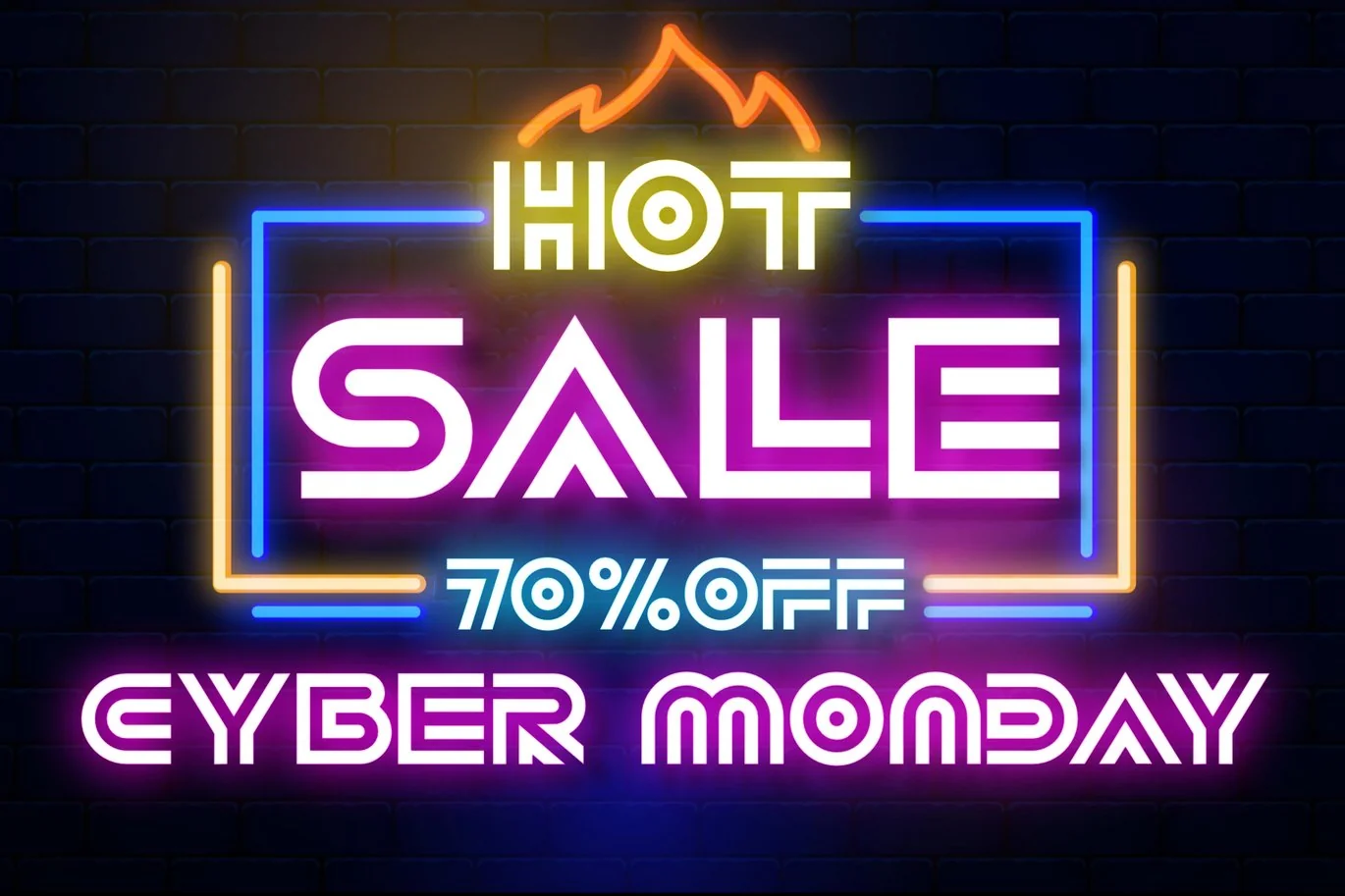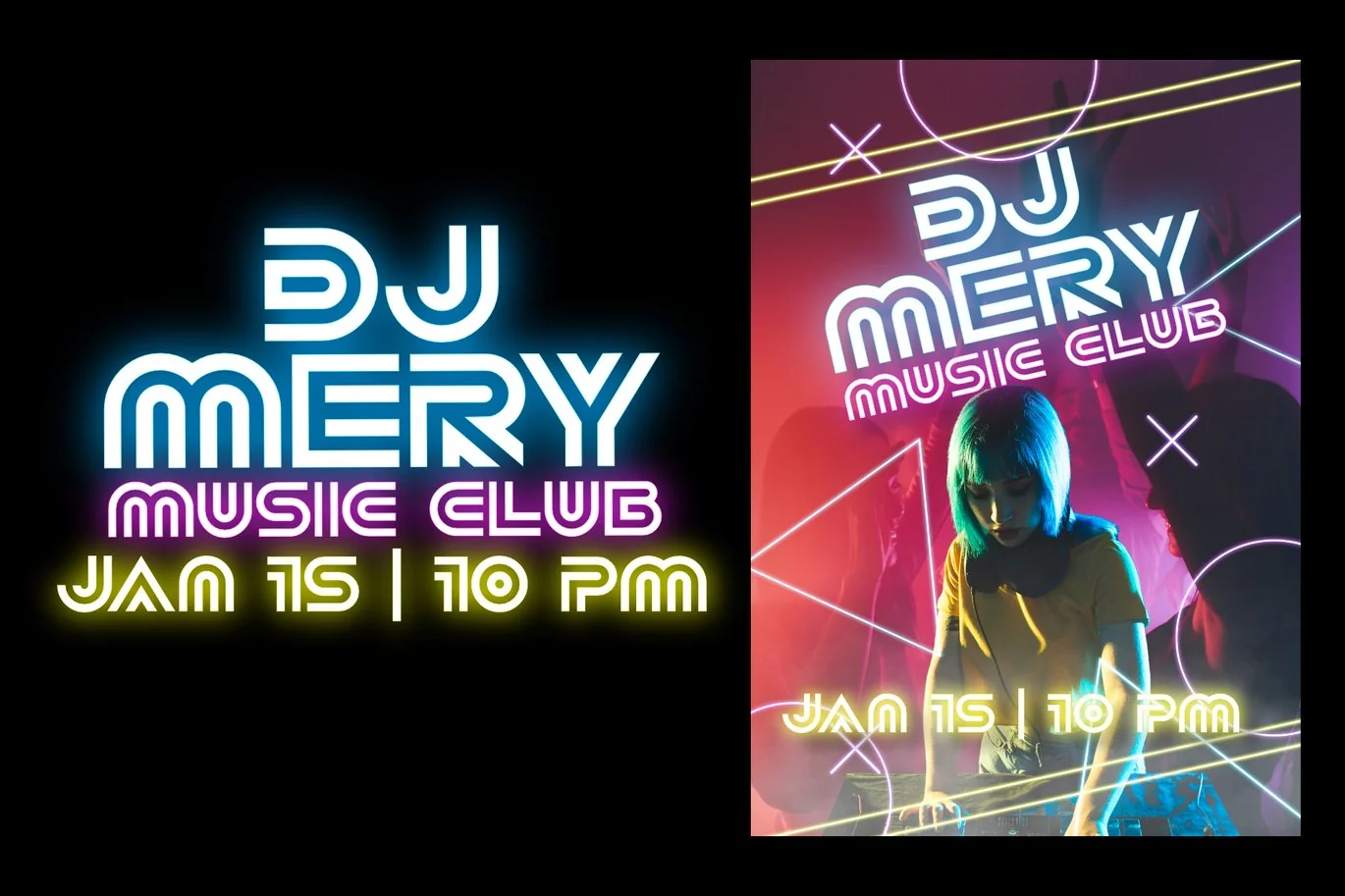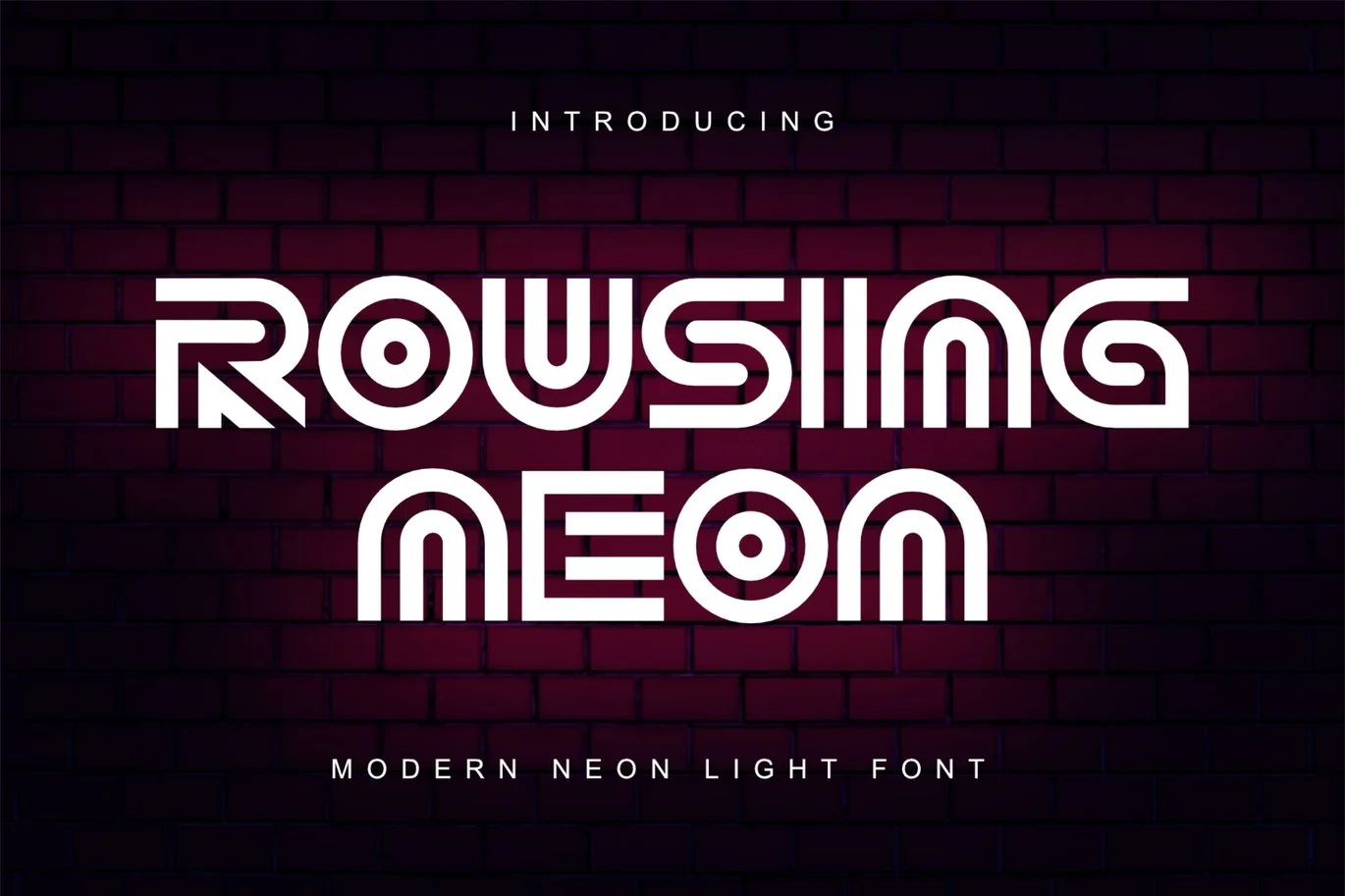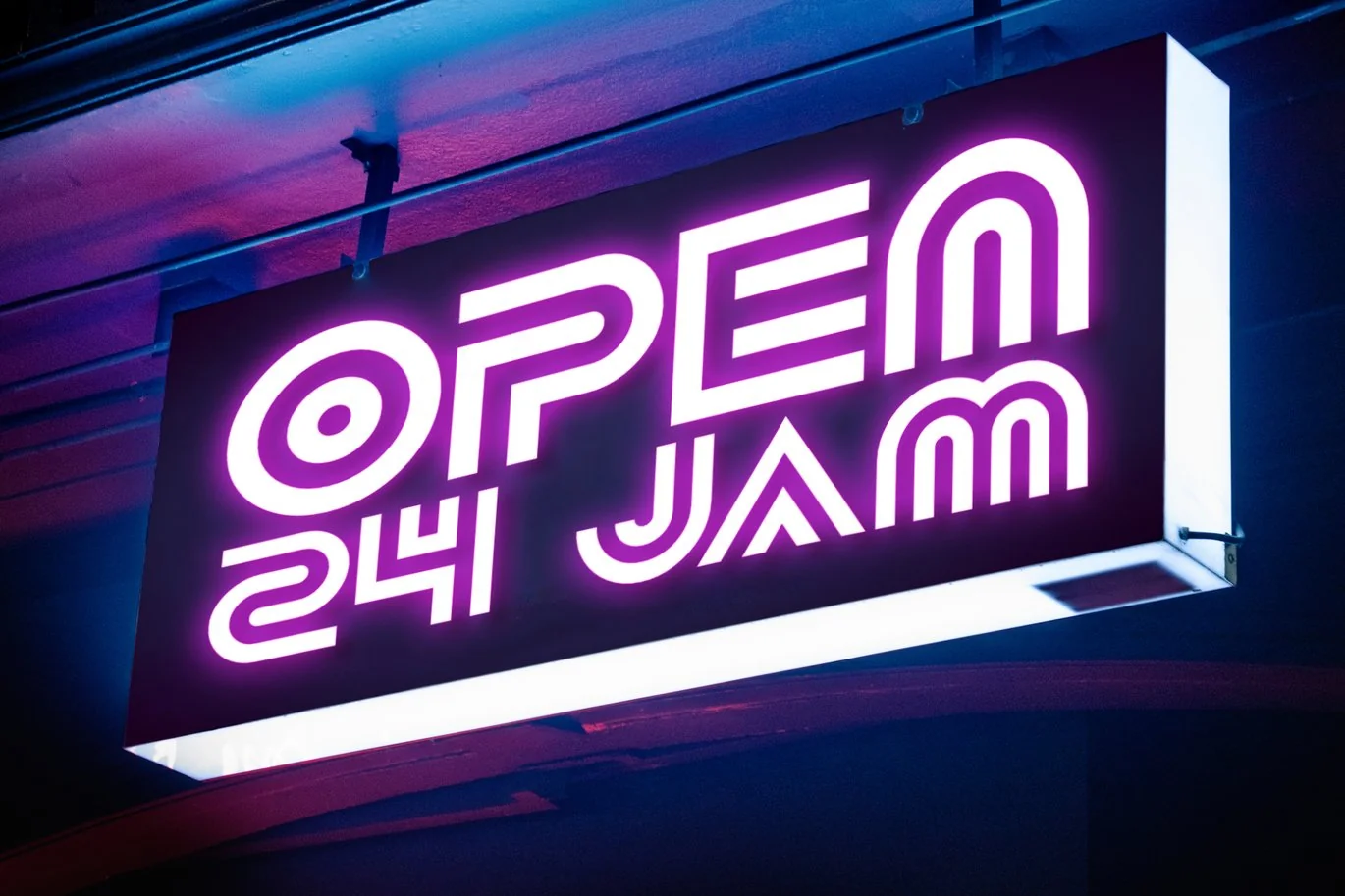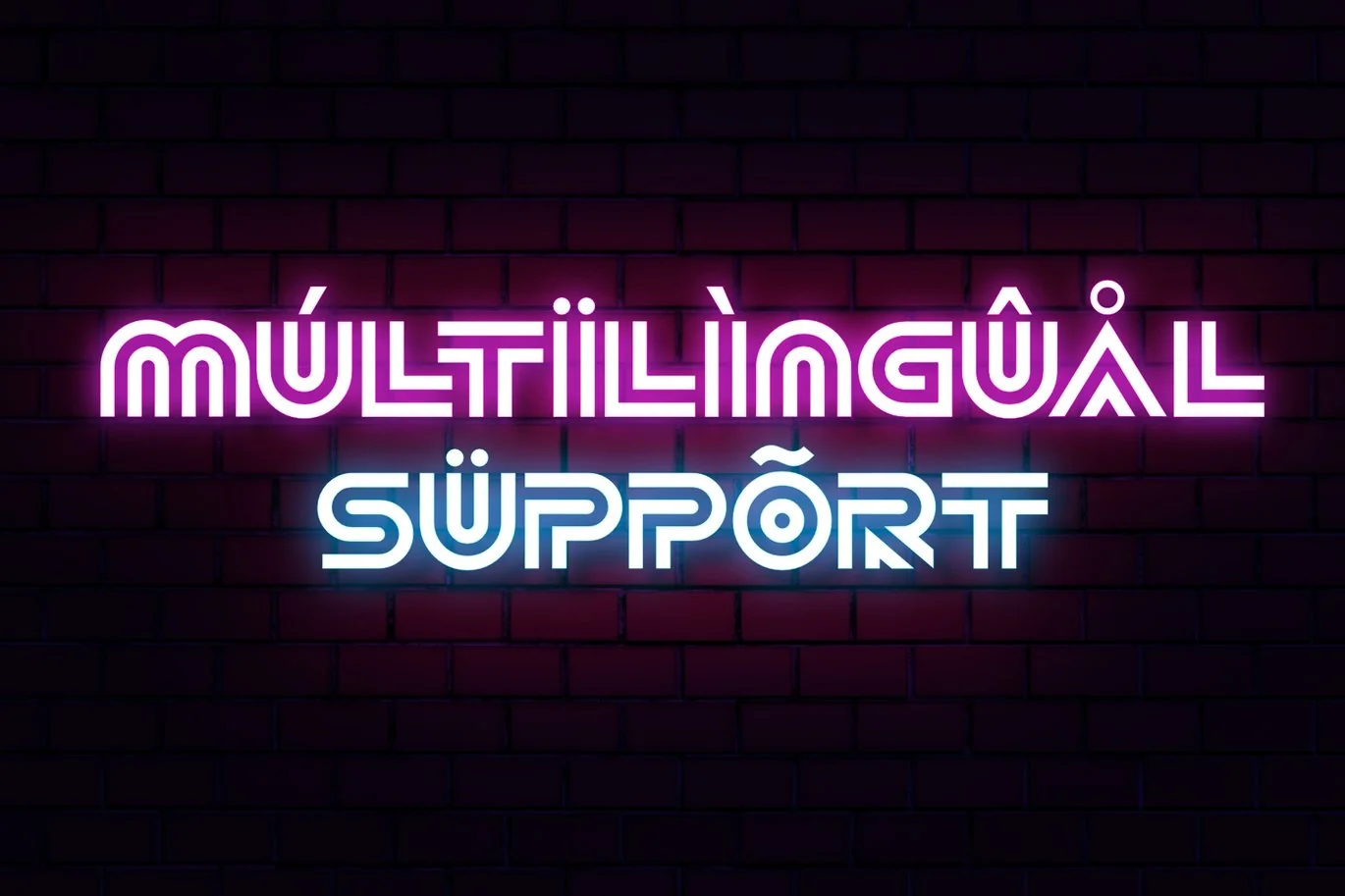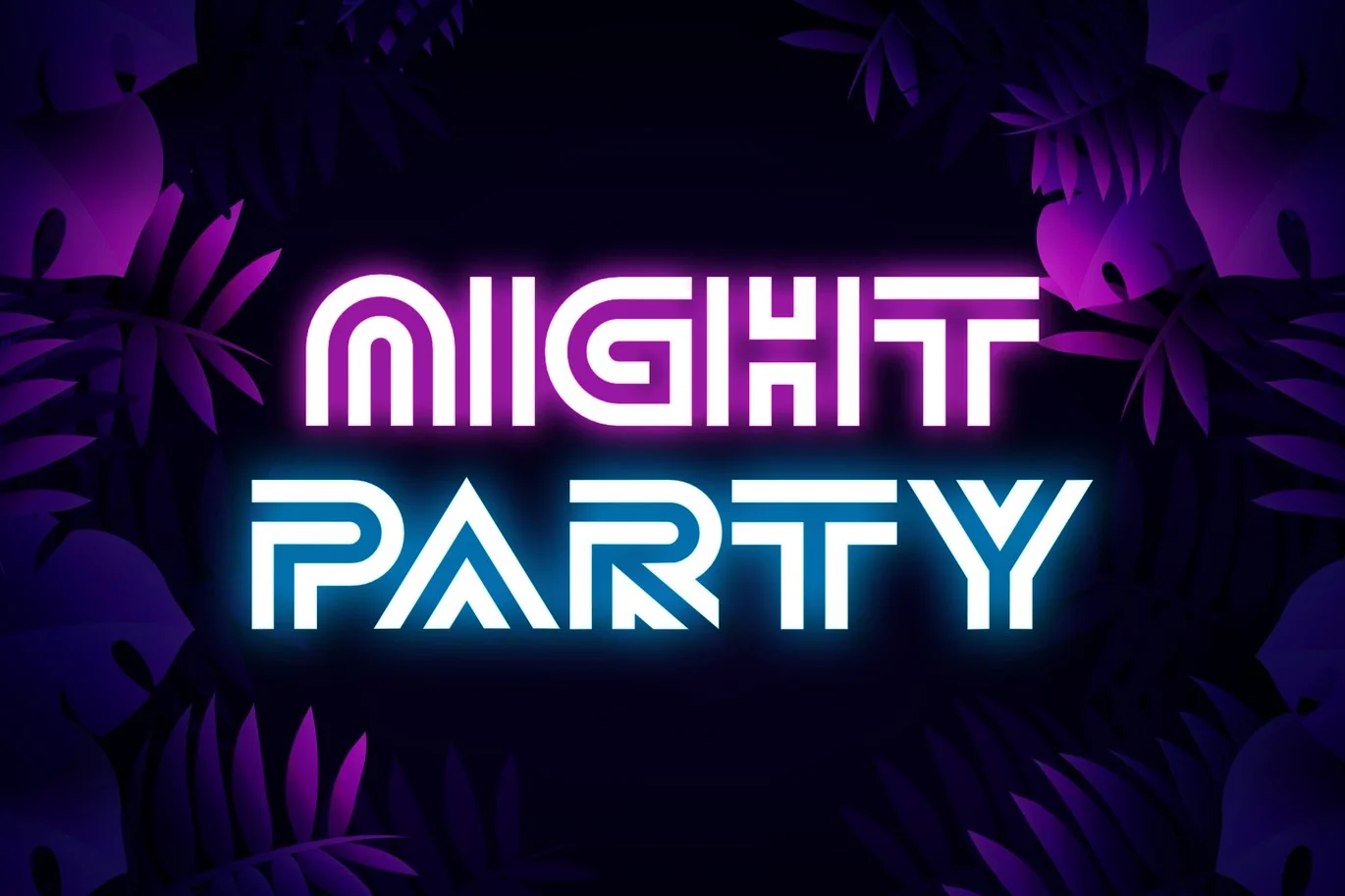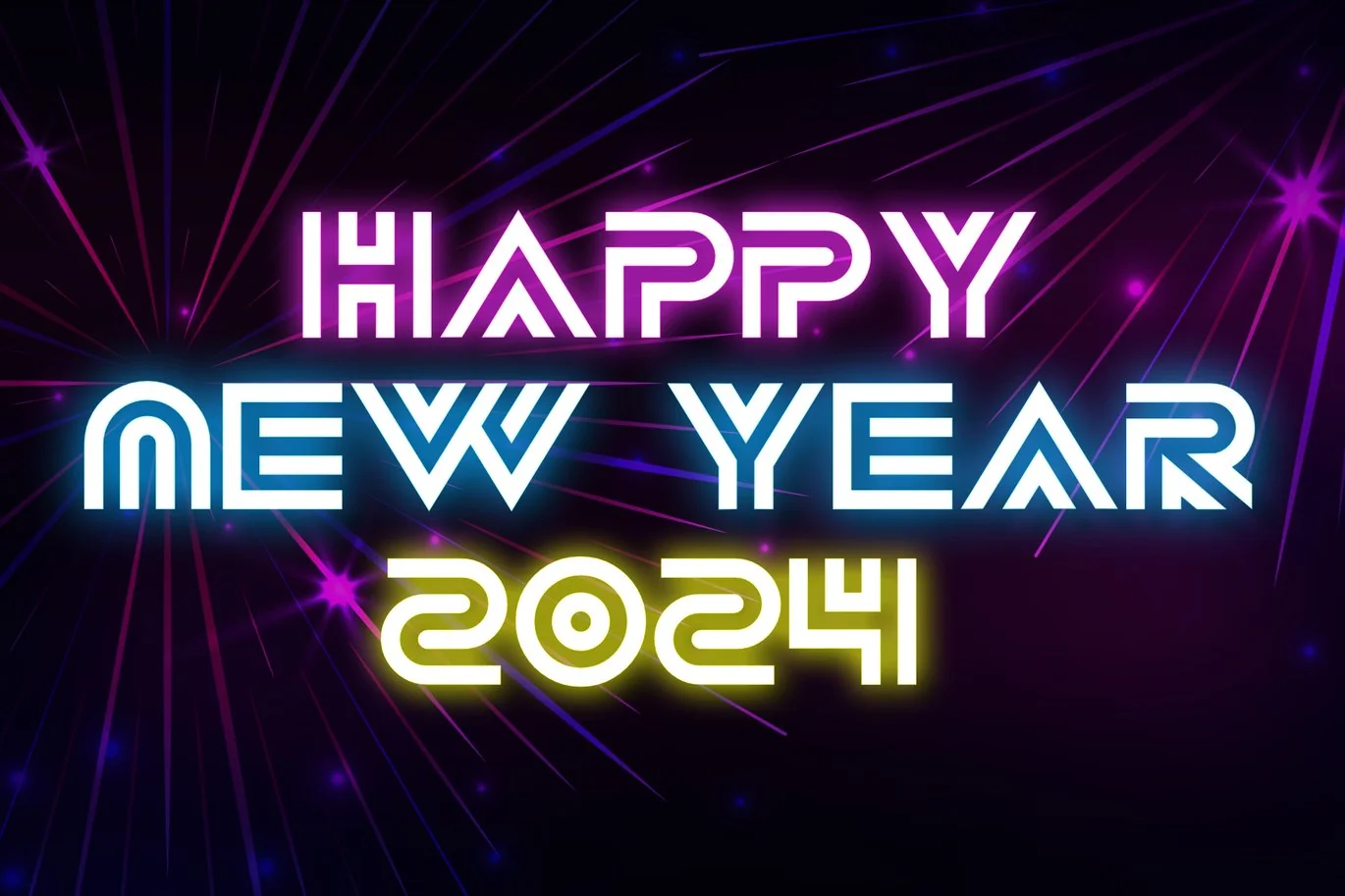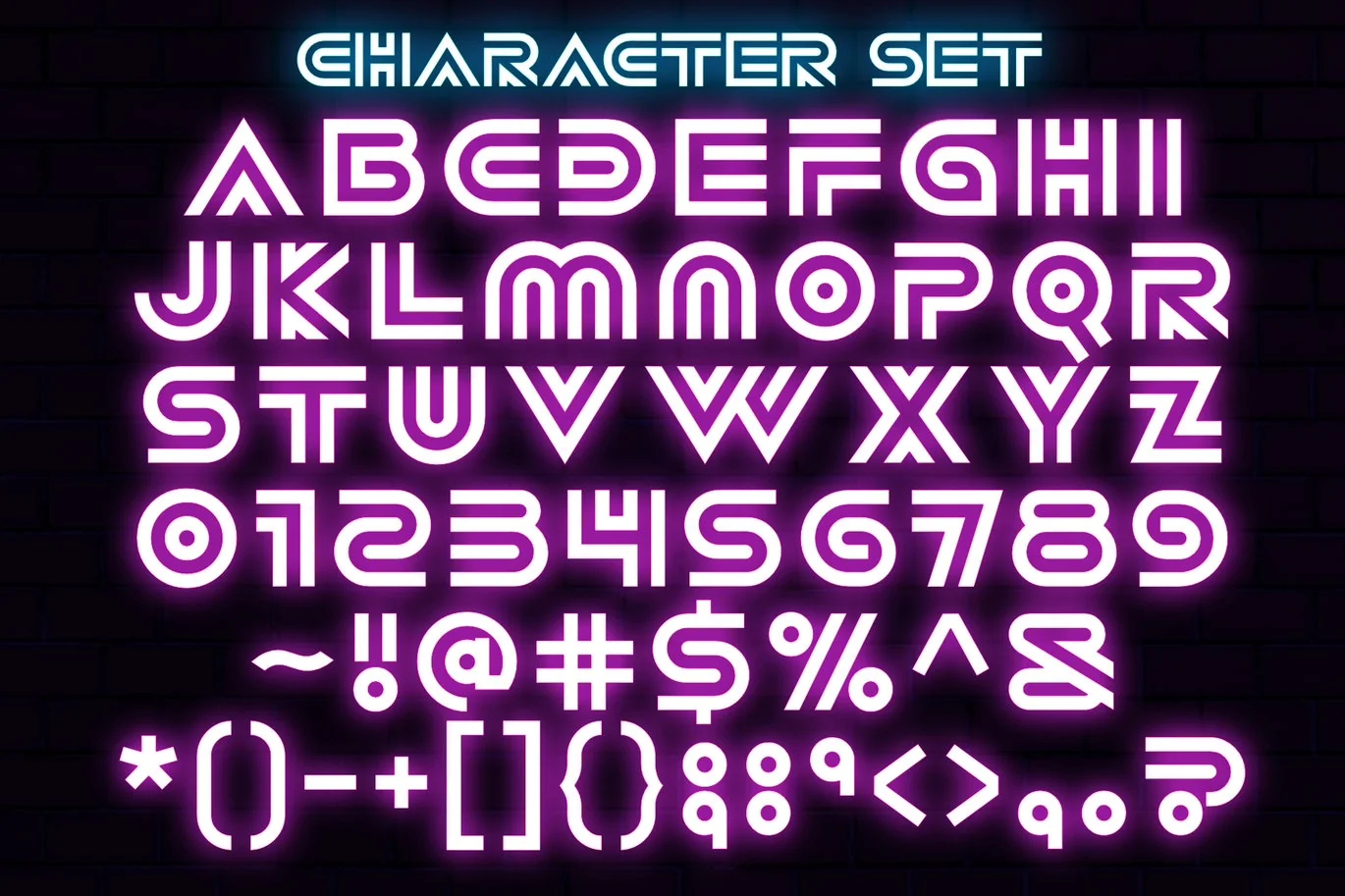
Rousing Neon | Modern Neon Light Font
Rousing Neon is a delightful display font that combines the elegance of modern letterforms with the captivating allure of neon lights. With its bold uppercase characters and unique design, this typeface adds a touch of playfulness and charm to your projects. The defining feature of Rousing Neon lies in its modern letterforms, which exude a sense of softness and approachability. Each letter is meticulously crafted with smooth curves, creating a harmonious and pleasing aesthetic. The modern shapes give the font a friendly and welcoming appearance, while the neon style adds a touch of excitement and vibrancy.
Inspired by the mesmerizing glow of neon signs, Rousing Neon infuses a sense of enchantment and allure into each character. The font captures the captivating charm of neon lights, casting a radiant glow that evokes a magical atmosphere. Each letter of Rousing Neon is thoughtfully crafted to strike a balance between modern shapes and legibility. The uppercase characters are distinct and easily recognizable, ensuring your message remains clear and impactful.
- Character Set A-Z
- Multilingual Supports
- Numerals and Punctuations
- Rousing Neon is perfect for designs like headlines, logos, and eye-catching titles that seek to make a bold statement with a
touch of whimsy. Whether you’re creating posters, branding materials, digital artwork, or anything in between, this font will
infuse your projects with a sense of joy and uniqueness.